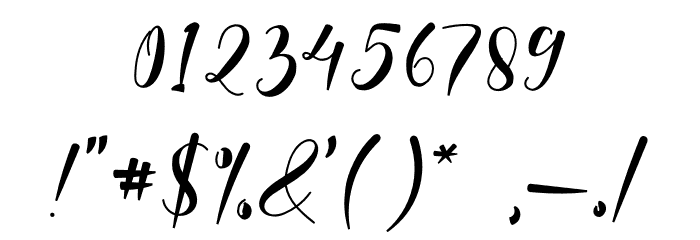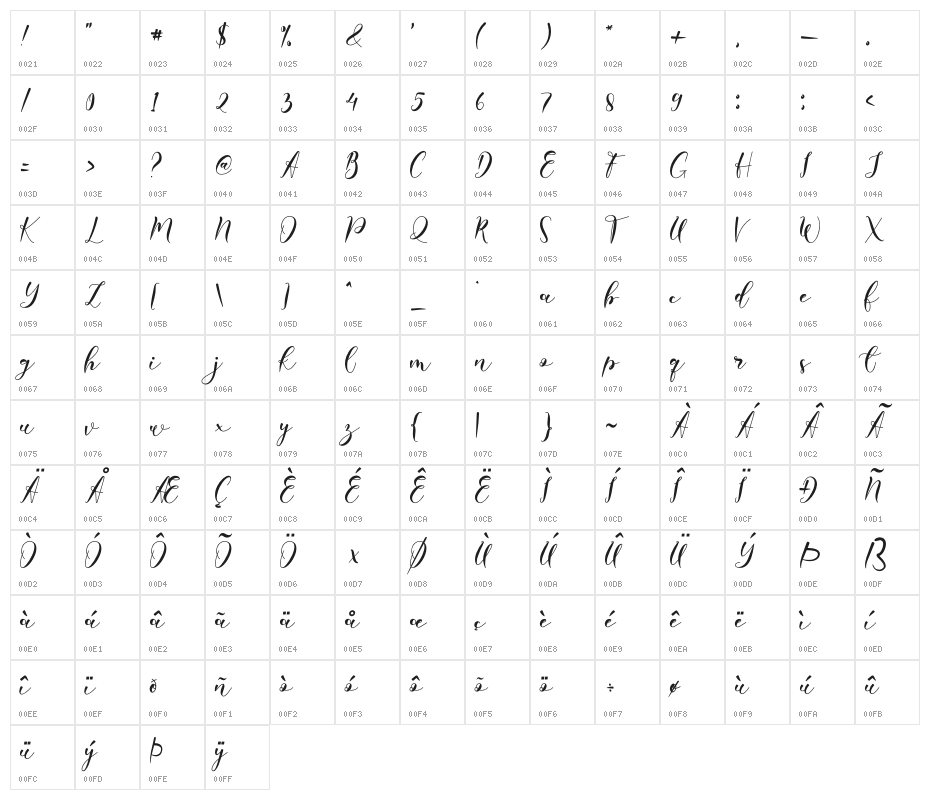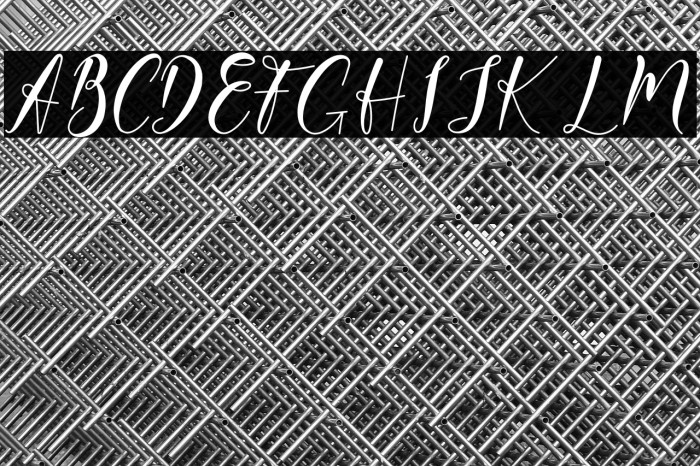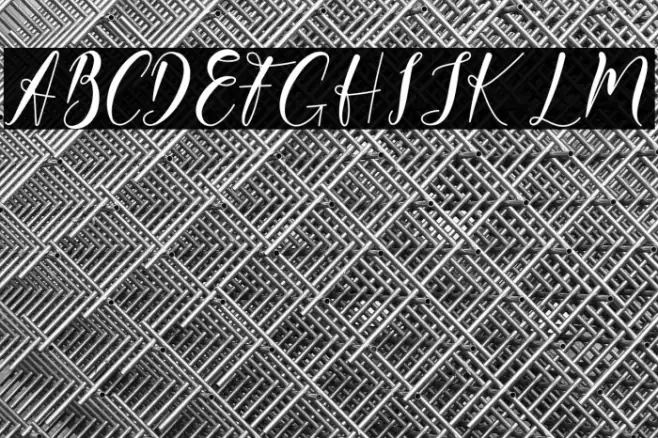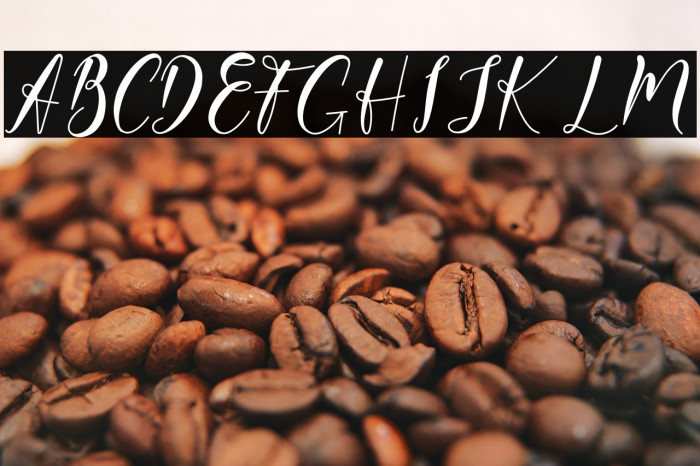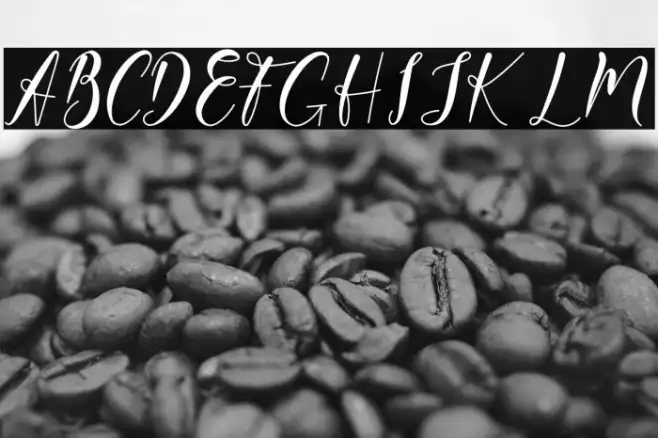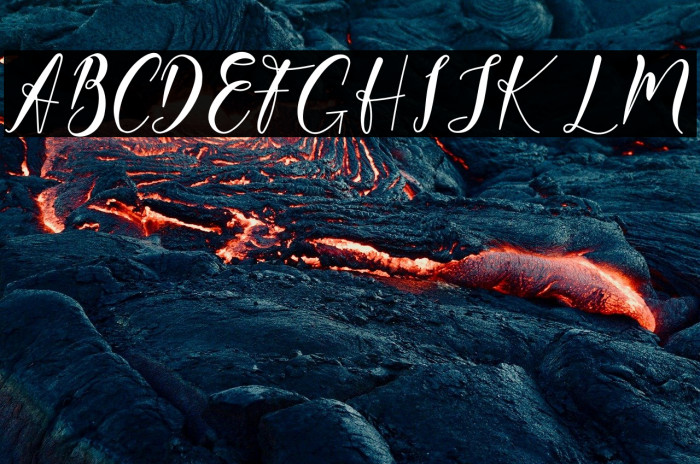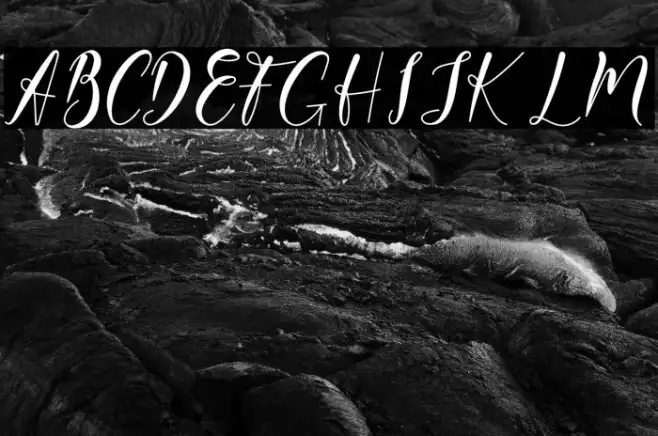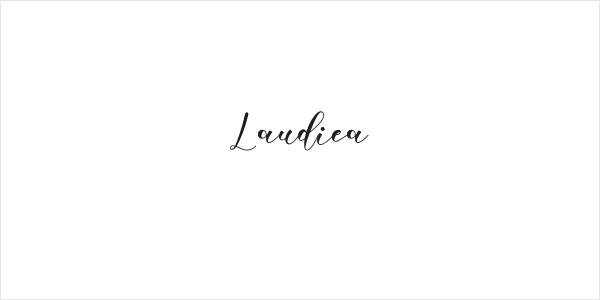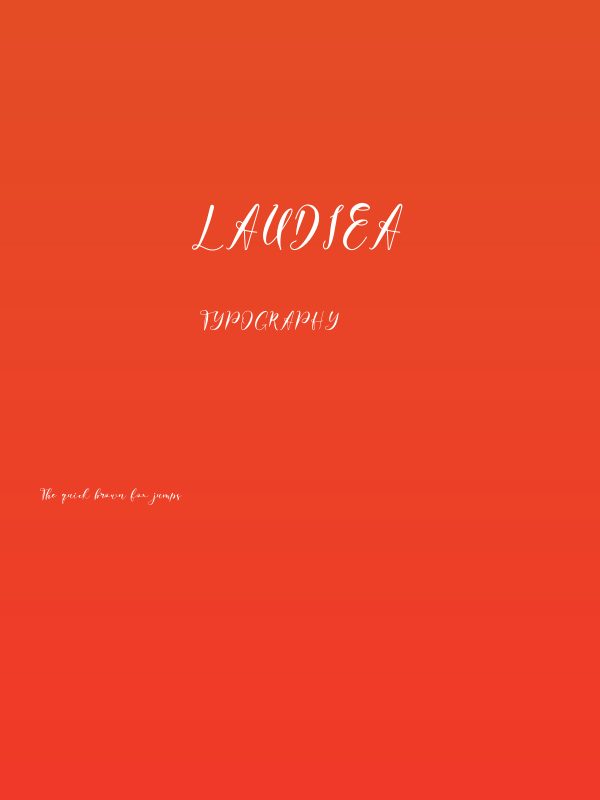
Laudiea Font
Laudiea Description
This font exudes a lively and elegant script style, characterized by its fluid, cursive strokes and graceful loops. The uppercase letters are tall and slightly narrow, with distinctive flourishes that add a touch of sophistication. The lowercase letters maintain a consistent flow, with some characters featuring charming swashes that enhance the overall aesthetic. The numerals are well-balanced, complementing the alphabet with their smooth curves. Special characters are thoughtfully designed, maintaining the font's cohesive style. This font is perfect for projects that require a personal and artistic touch.